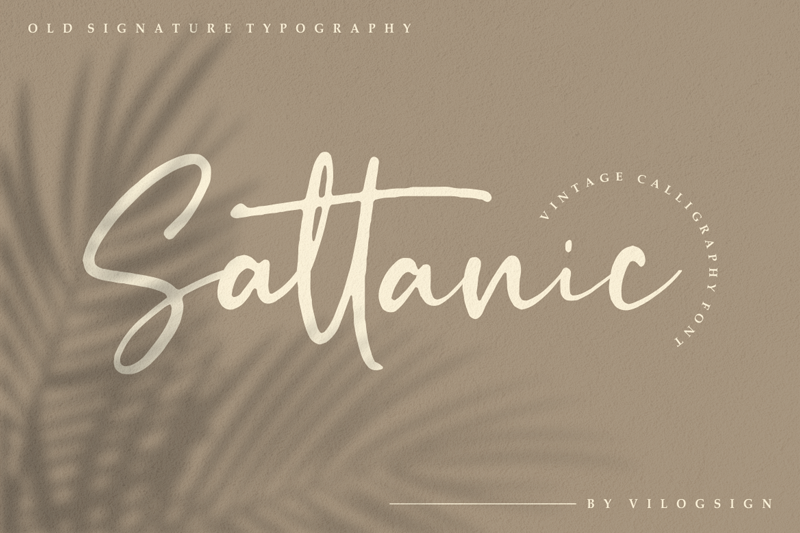
Preview and download Sattanic Font. Created by Nur Kholis in Script Handwritten styles with Free for personal use license.
Font name: | Sattanic |
Author: | Nur Kholis |
Note by Nur Kholis | |
Hi,,, Introducing the new "Sattanic" old signature typography font. A beautiful vintage script font with alternative and ligature to complete your needs. This font completed with italic also. With built in Opentype features, this script comes to life as if you are writing it yourself. This font is very good with additional alternatives like multilingual support. With texture make this font look natural, vintage but classic and elegant, very suitable to make a branding, magazine, fashion, quotes, logo, packaging, and other. Link to purchase full version and commercial license https://www.creativefabrica.com/product/sattanic/ https://fontbundles.net/vilogsign/476022-sattanic-old-signature-typography-font visit my $1 deal : https://thehungryjpeg.com/product/3695654-sattanic-old-signature-typography-font Please follow my instagram for my design : https://www.instagram.com/nur_kholis92/ Hope you enjoy it! Please appreciate, if you like it Thank you very much |